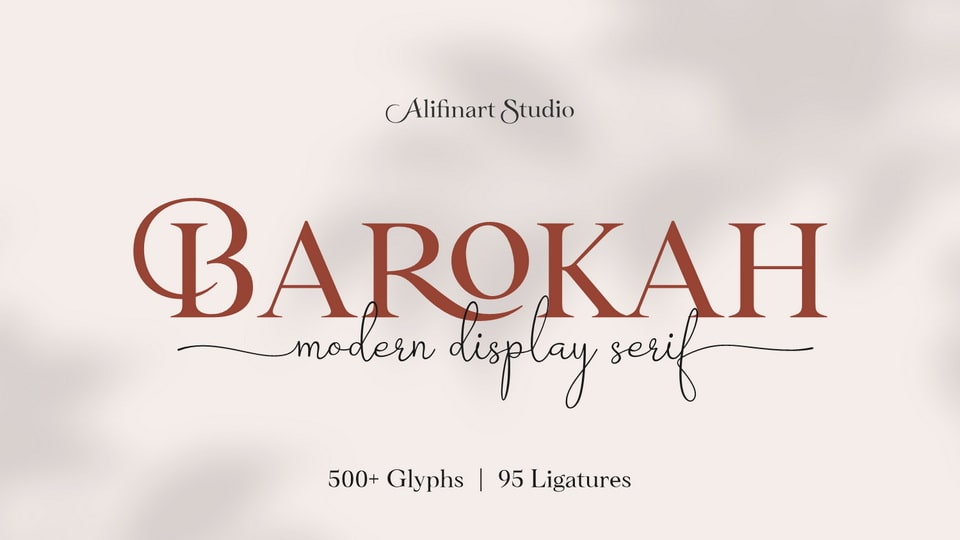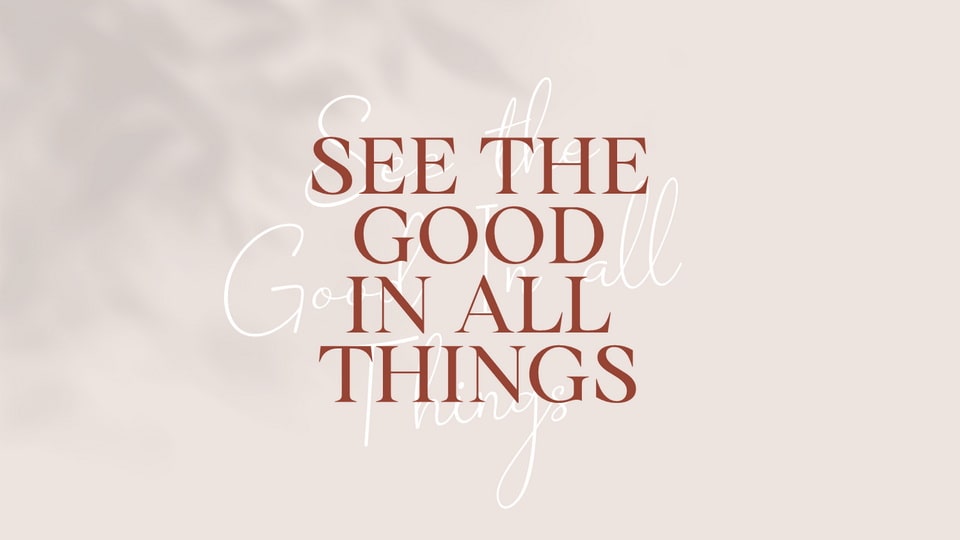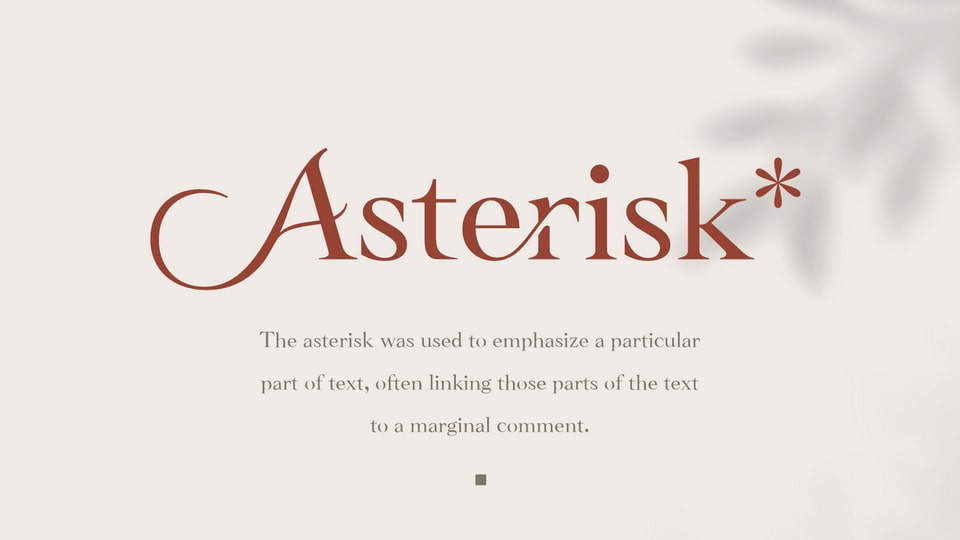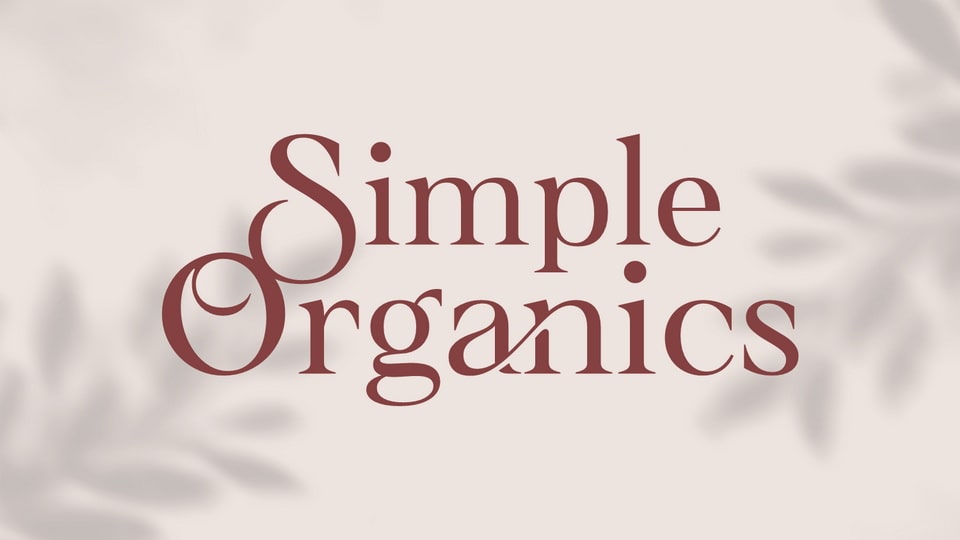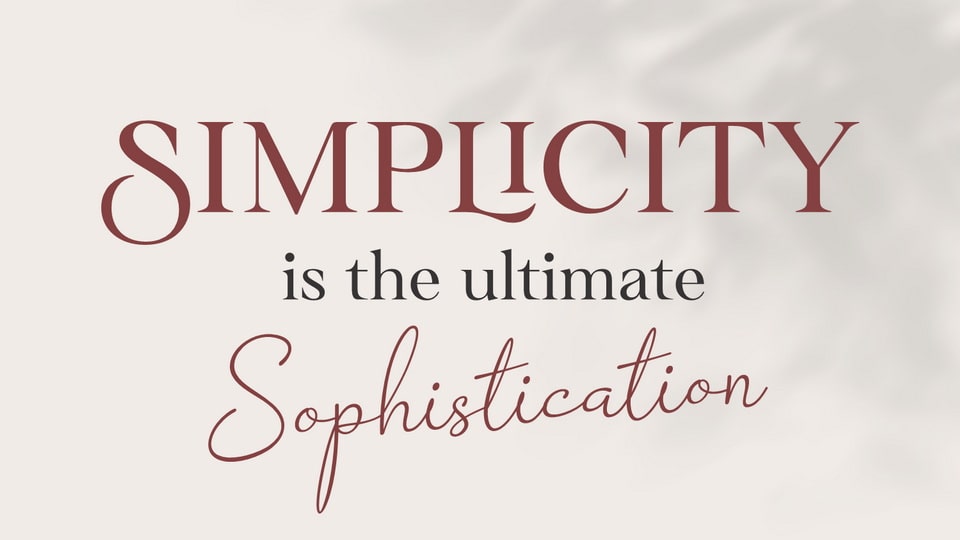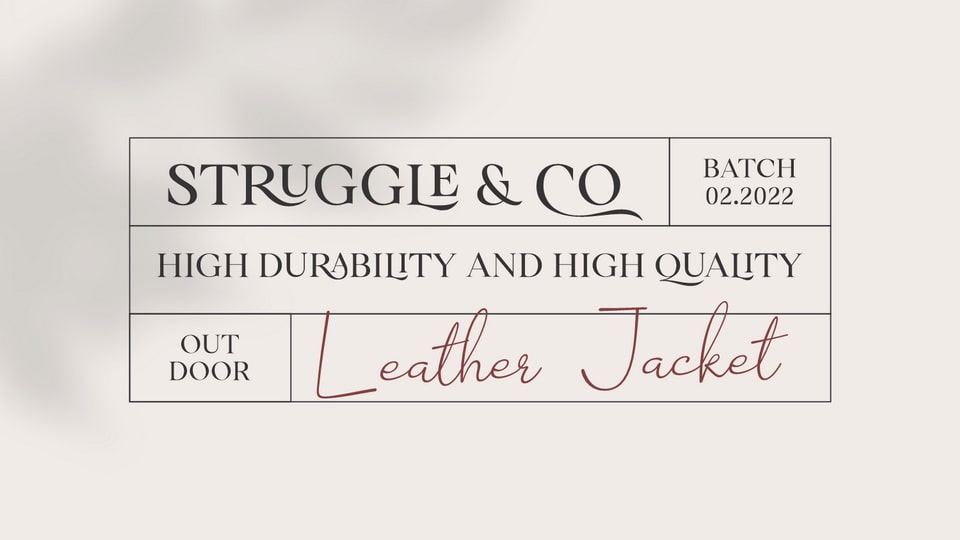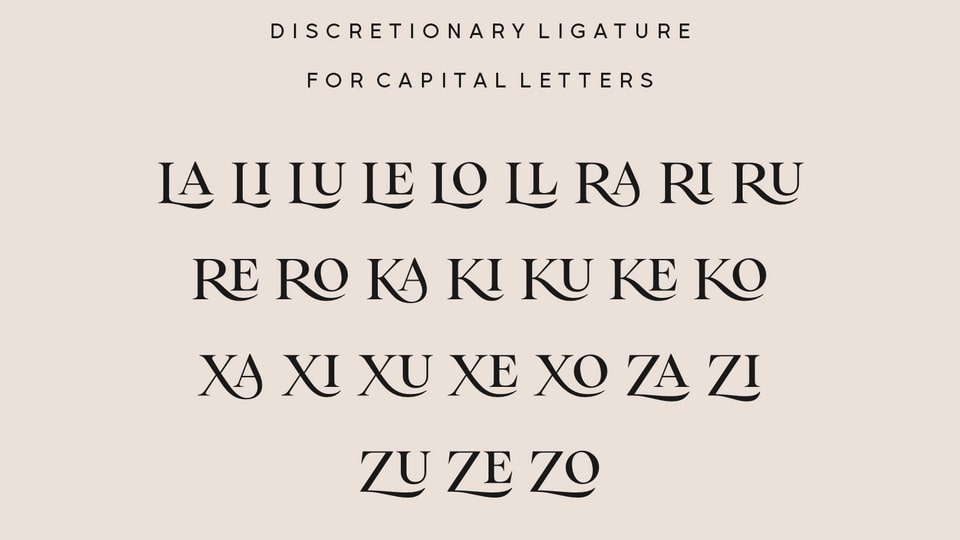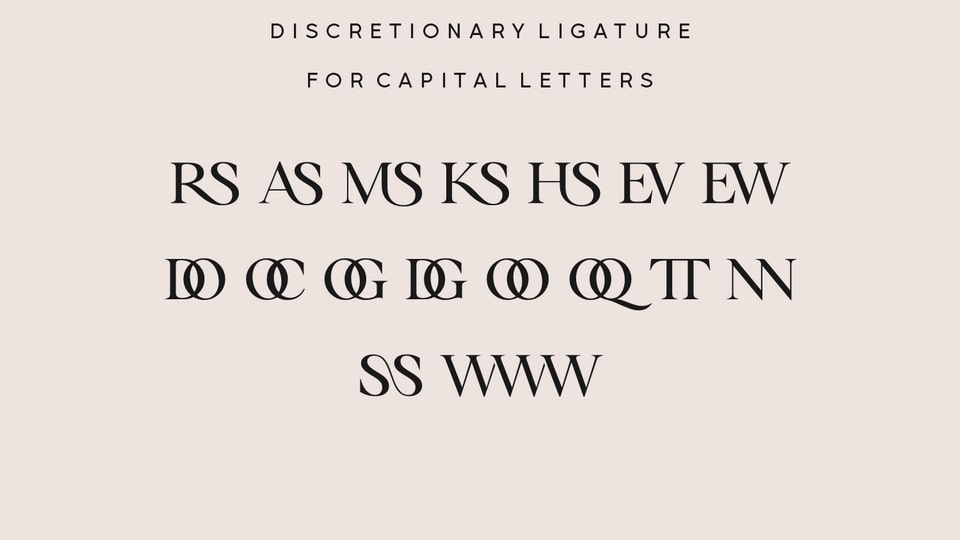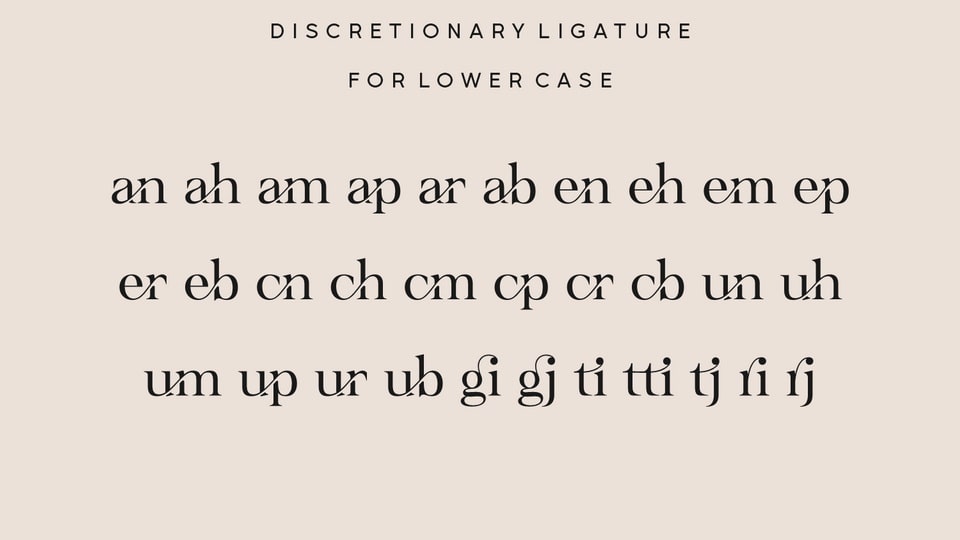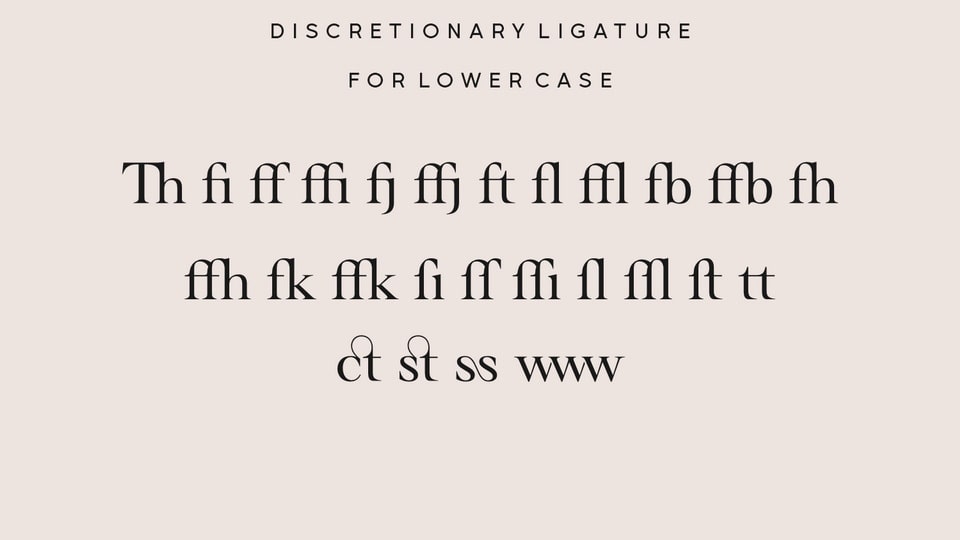
Do you want to create a design with a luxurious and casual style? Barokah Serif font is the best choice. This is a modern display font has a lot of ligature for uppercase and lowercase. This serif font are perfect for luxury projects and will keep your creativity flowing.
Typeface Story:
In 2021, we released Barokah Script and at that time a lot of people loved it. However, we feel that Barokah Script should be combined with a serif font with a luxurious and casual style, so that it will become a popular for everyone.
That’s why, today—after 1 year—we are releasing Barokah Serif, as the best match for Barokah Script.
Why Barokah Serif Font?
Barokah Serif is a font with a myriad of ligatures, both uppercase and lowercase. In this font, there are Stylistic Alternates for each capital letter with an authentic and elegant design.
In the lowercase letters you will find an amazing variety of ligatures and in a luxurious style. This will make each of your designs look elegant and classy. For ease of use, we divide it into two; Standard and Discretionary Ligatures.
Features:
– Uppercase and lowercase letters
– Numbers and punctuation
– Lots of ligatures for uppercase and lowercase
– Stylistic Alternates for each capital letter
Standard and Discretionary Ligatures
LA LI LU LE LO LL RA RI RU RE RO KA KI KU KE KO XA XI XU XE XO ZA ZI ZU ZE ZO RS AS MS KS HS EV EW DO OC OG DG OO OQ TT NN WWW SS
Th fi ff ffi fj ffj ft fl ffl fb ffb fh ffh fk ffk ſi ſſ ſſi ſl ſſl ſt ct st tt an ah am ap ar ab en eh em ep er eb cn ch cm cp cr cb un uh um up u rub gi gj ti tti tj ss ri rj www